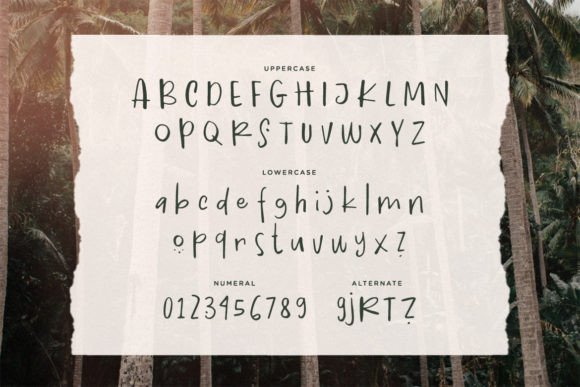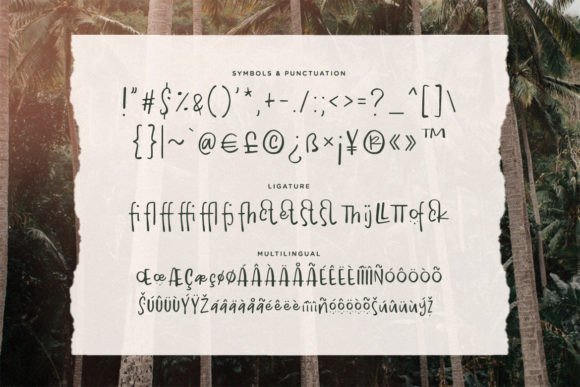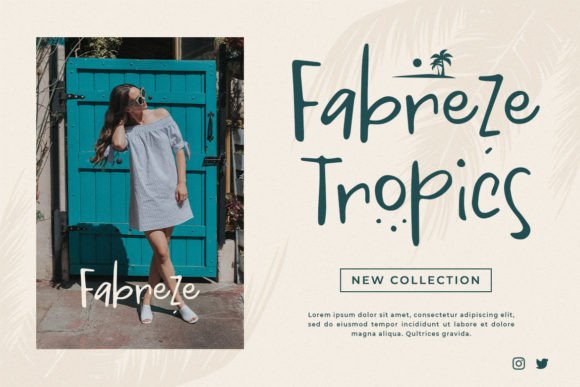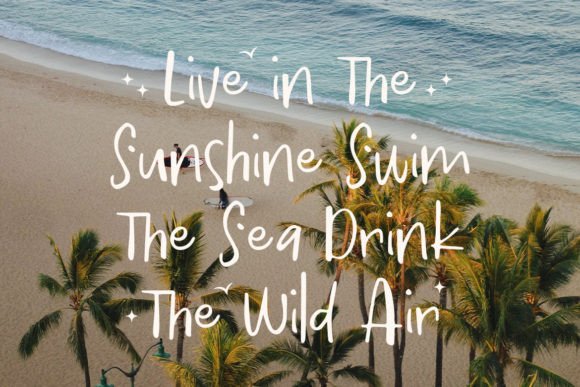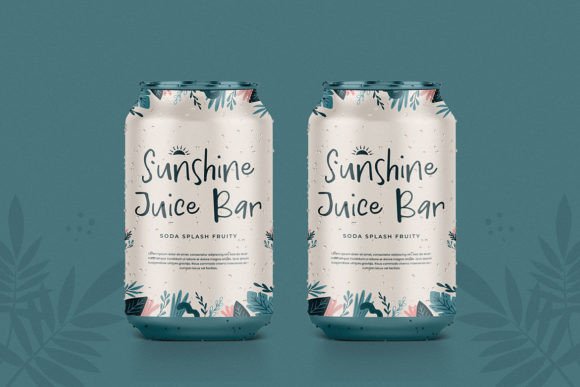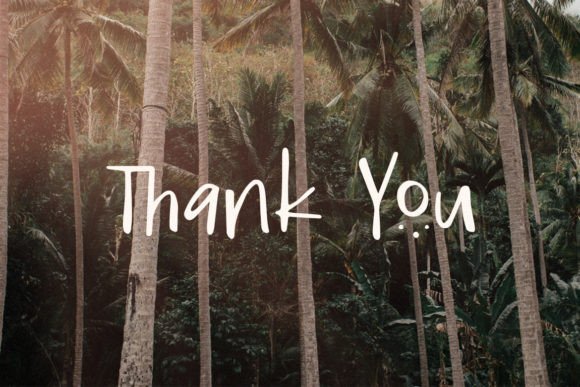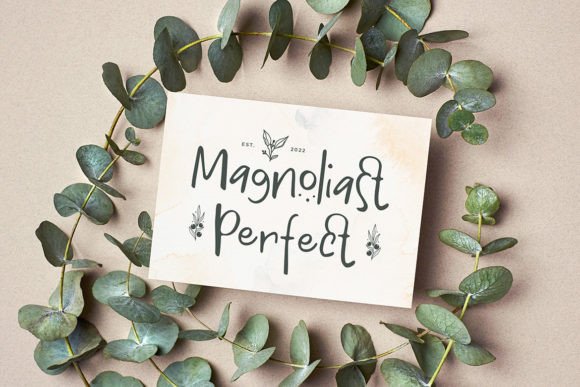
Palmiva Font
About Palmiva Font
“Palmiva” is a fancy hand-drawn font meticulously crafted to stand out and become a true favorite. With its unique design, this font promises to look outstanding in any context, whether it’s used on busy backgrounds or as a standalone headline.
The hand-drawn quality of “Palmiva” adds a touch of artistry and authenticity to your designs. It’s not just a font; it’s a creative element that brings a sense of uniqueness and character to any project it graces. The intricacies of the handcrafted details make “Palmiva” a standout choice for those who appreciate the visual impact of hand-drawn fonts.
The fancy and distinctive style of “Palmiva” makes it versatile for various design contexts. It can confidently take center stage as a standalone headline, making a bold and artistic statement. Additionally, its design ensures that it remains visually striking even when placed on busy or vibrant backgrounds.
Imagine “Palmiva” enhancing the visual appeal of posters, banners, or digital graphics, where its fancy hand-drawn aesthetic creates a captivating focal point. Whether used in branding, packaging, or promotional materials, this font contributes to a unique and memorable visual identity.
In conclusion, “Palmiva” is more than just a font; it’s a design asset that adds a fancy and hand-drawn flair to your creative projects. Whether used on busy backgrounds or as a standalone headline, let “Palmiva” be the font that elevates your designs with its unique and eye-catching style.